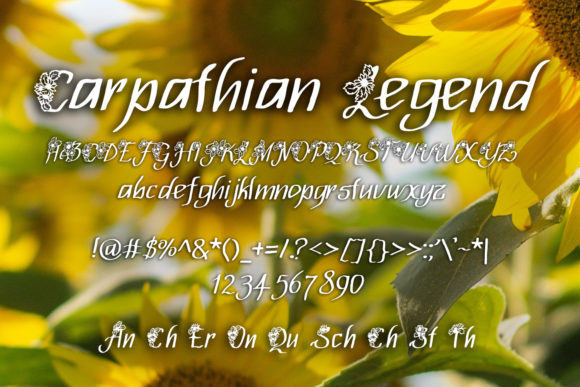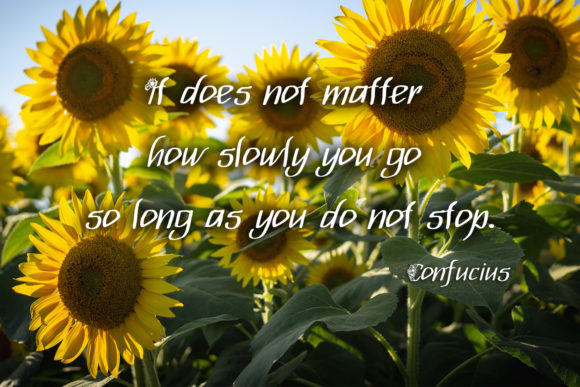
Introducing the Carpathian Legend Font: Elevate Your Designs with Elegance
In the world of typography, a font can make or break a design. For designers and crafters looking to add a touch of sophistication and whimsy to their projects, the Carpathian Legend Font is an excellent choice. This stylish and delicate handwritten font is poised to become a favorite among creatives seeking to elevate their designs with a clean, thin, and smooth aesthetic.
What is Carpathian Legend Font?
Carpathian Legend is a beautiful, handcrafted font that exudes elegance and refinement. Its thin and smooth lines make it perfect for a variety of design applications, from digital projects to print materials. The font’s delicate appearance belies its versatility, allowing it to be used in both bold and subtle contexts.
Key Features of Carpathian Legend Font
• Stylish and Delicate: The Carpathian Legend Font boasts a stylish and delicate appearance that adds a touch of sophistication to any design.
• Clean and Thin: The font’s clean and thin lines make it perfect for designs where a subtle touch is desired.
• Smooth Vibe: The overall smooth vibe of the font ensures that it complements a wide range of design styles.
• Versatile: From digital platforms to print materials, Carpathian Legend can be used across various mediums.
Why Choose Carpathian Legend Font?
Choosing the right font for a project can be daunting, but Carpathian Legend offers several compelling reasons to consider it:
• Elegance: It adds an elegant touch to any design, making it perfect for projects that require a sophisticated look.
• Readability: Despite its delicate nature, the font maintains excellent readability, ensuring that your message is conveyed clearly.
• Uniqueness: With its unique style, Carpathian Legend helps your design stand out from the crowd.
Use Cases for Carpathian Legend Font
The versatility of Carpathian Legend Font makes it suitable for a wide range of projects, including:
• Branding: Use it to create elegant logos and brand identities.
• Stationery: Perfect for designing stylish greeting cards, invitations, and letterheads.
• Digital Media: Enhance your website, blog, or social media graphics with its smooth and delicate aesthetic.
• Packaging: Add a touch of sophistication to product packaging and labels.
• Art and Craft: Ideal for crafters who create handmade products, such as journals, scrapbooks, and DIY decor.
Tips for Using Carpathian Legend Font
To get the most out of Carpathian Legend Font, consider the following tips:
• Pair with Bold Fonts: Combine it with a bold font for striking headings and elegant body text.
• Experiment with Colors: While the font looks great in black, experimenting with colors can add a unique touch to your designs.
• Adjust Line Spacing: For better readability, ensure adequate line spacing, especially in longer texts.
The Carpathian Legend Font is a stylish and delicate addition to any designer’s toolkit. Its clean, thin, and smooth aesthetic makes it versatile and elegant, suitable for a wide range of projects. Whether you’re a professional designer or a crafter, this font is sure to elevate your designs and add that special touch of sophistication. Discover the beauty of Carpathian Legend and let your creativity shine.